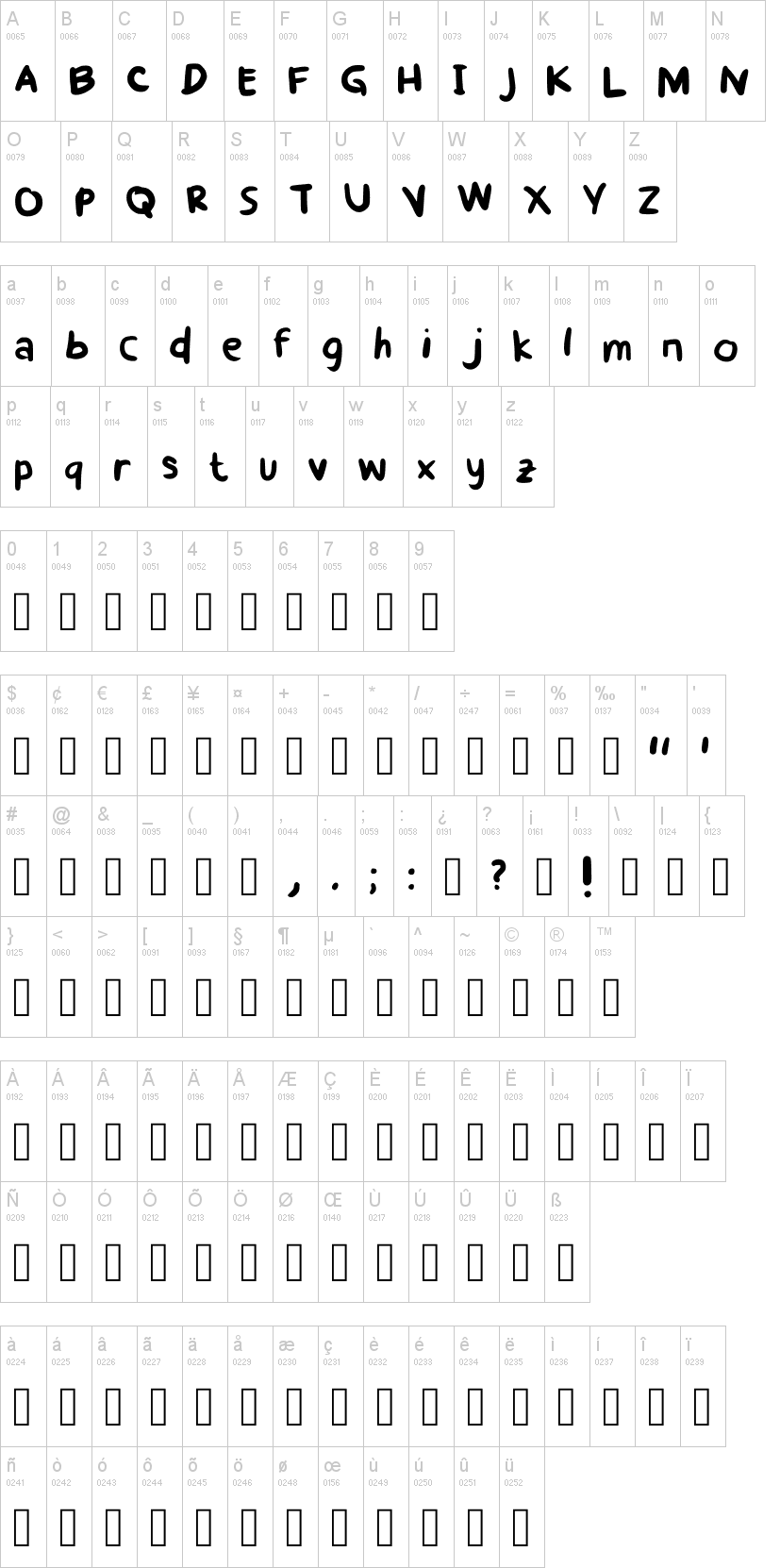
Note of the authorhi im cha and this is my handwritten font, you can use it for personal-use only. if you want to use for commercial please let me know and contact me at chararyy@gmail.com thankyou ^^